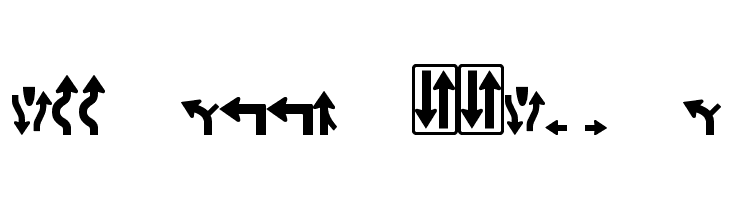
Bold, geometric arrows for signage and wayfinding.
设计师偏爱 Roadgeek 2005 Arrows 2, Isle Body PERSONAL USE Medium Italic, Minor Regular, LiganoDemo-Regular and NEMETRIC REGULER,因为其造型干净、适用范围广—— 从品牌识别到落地页、海报都能胜任。